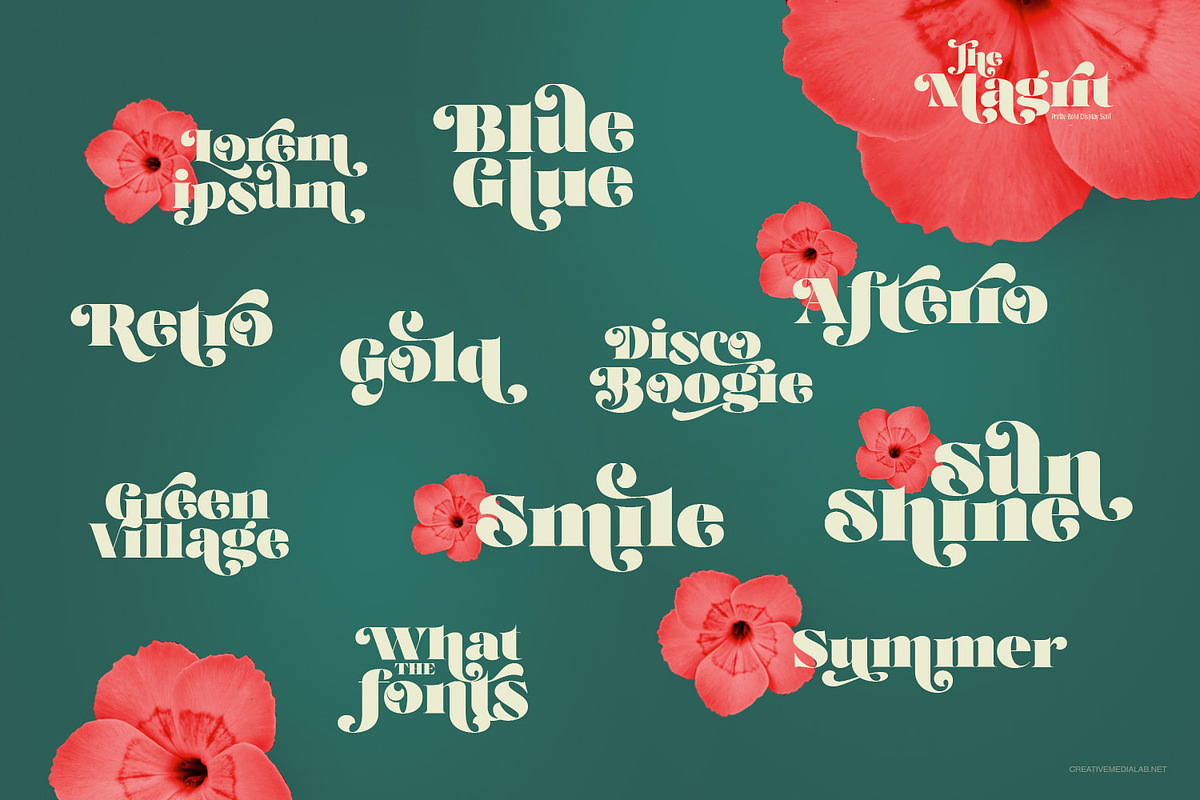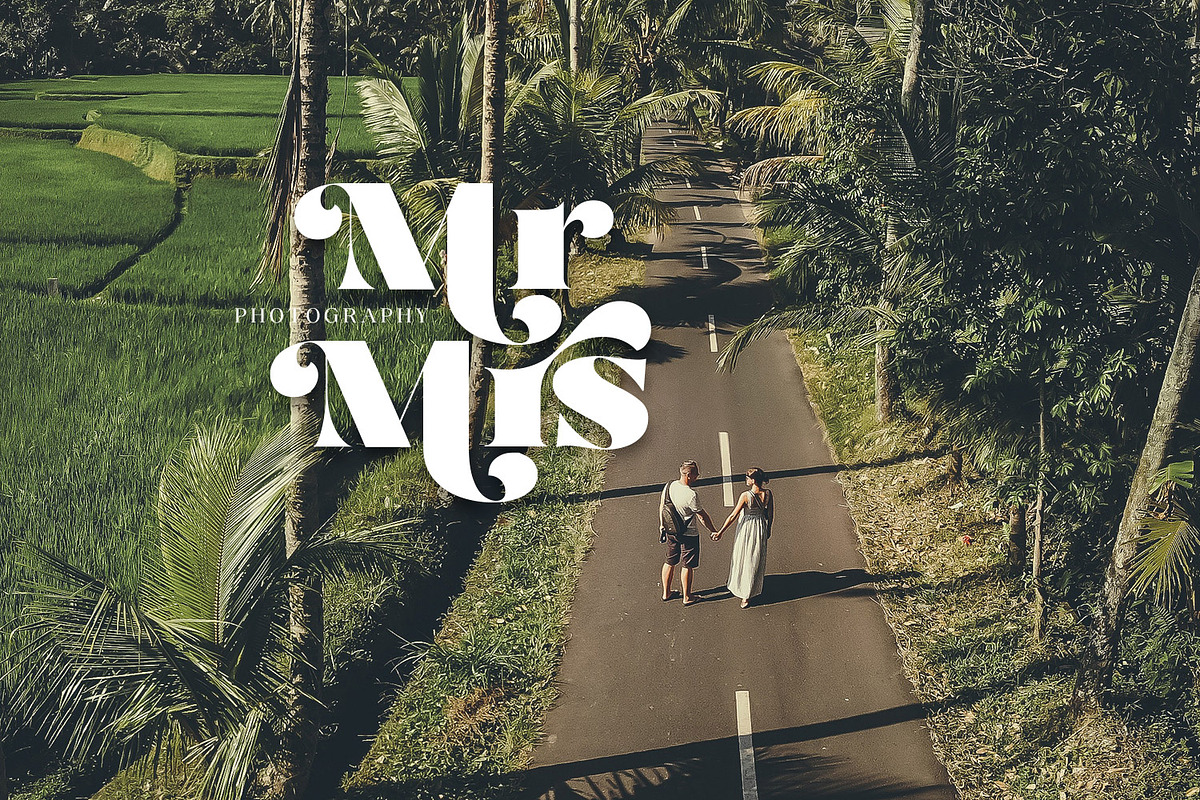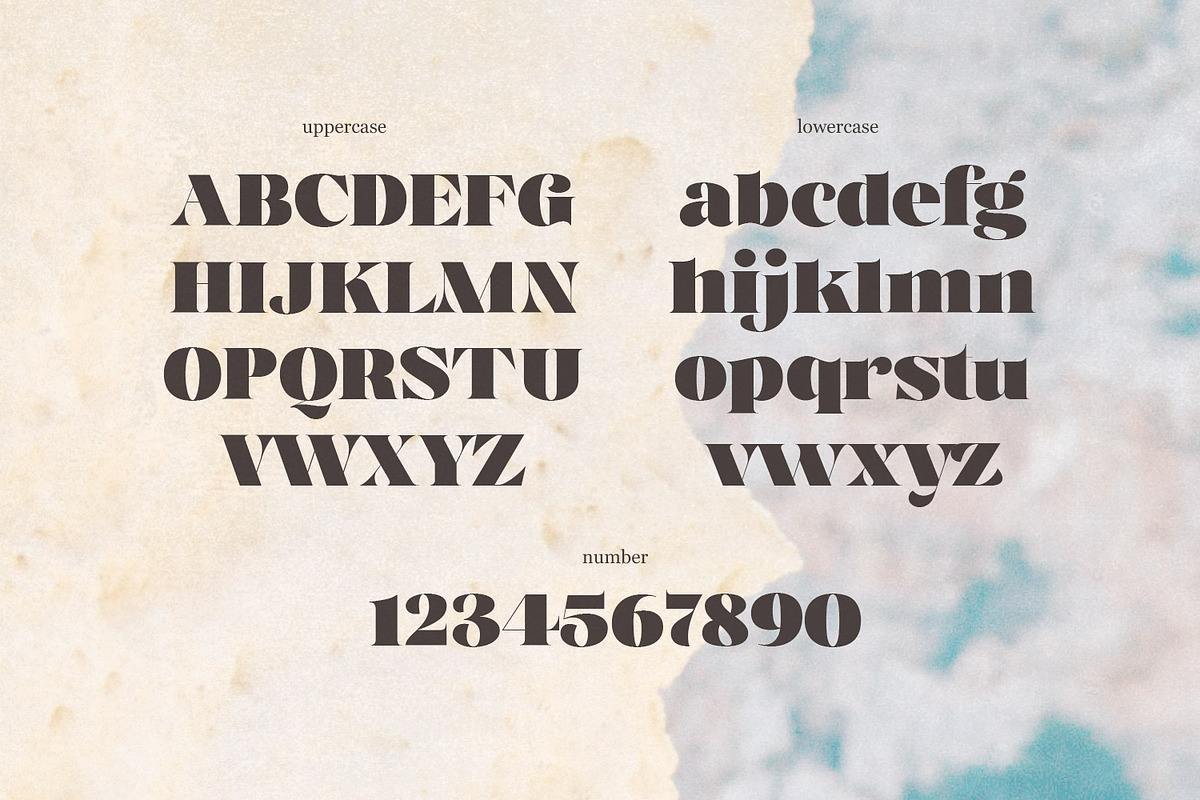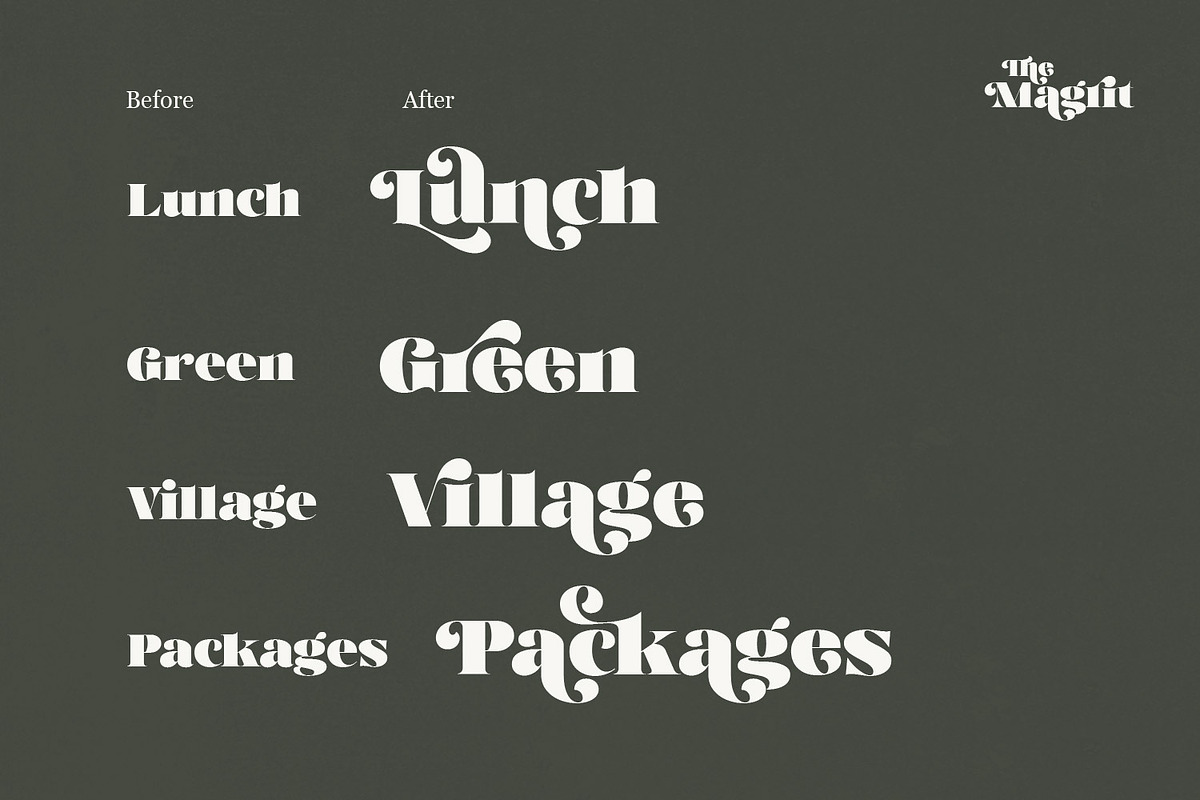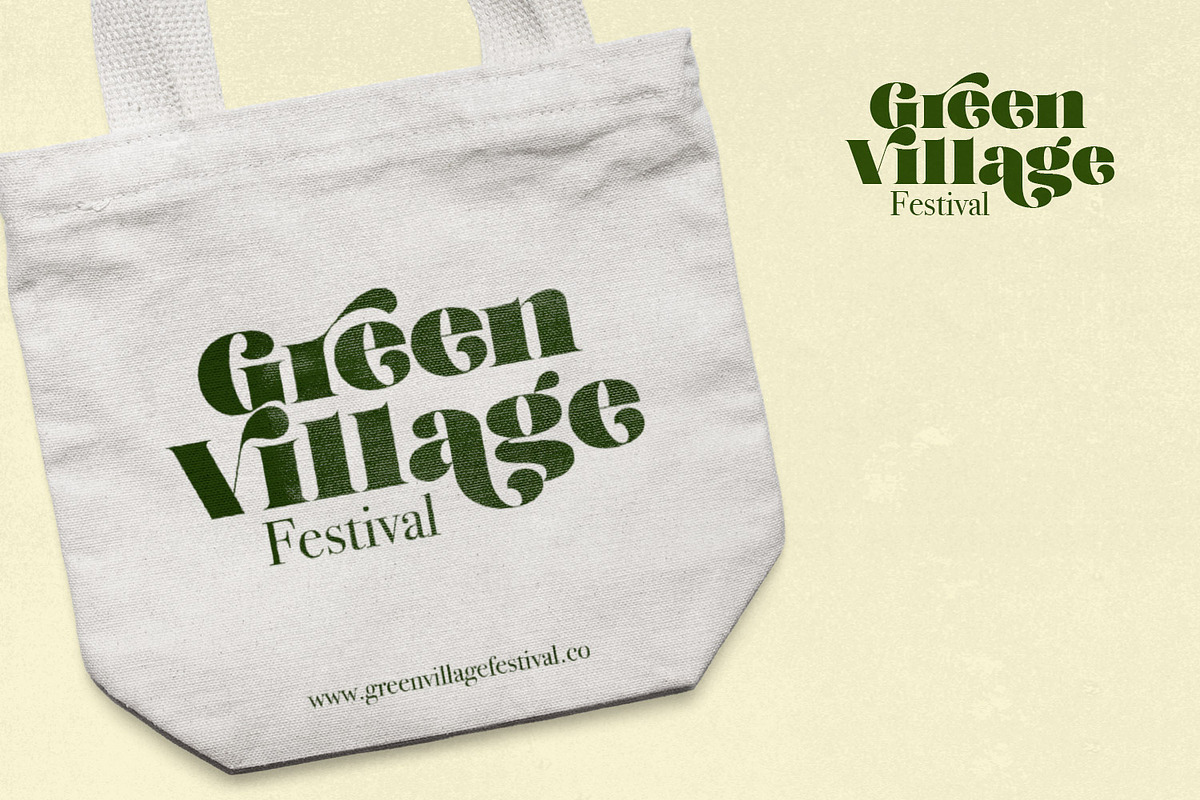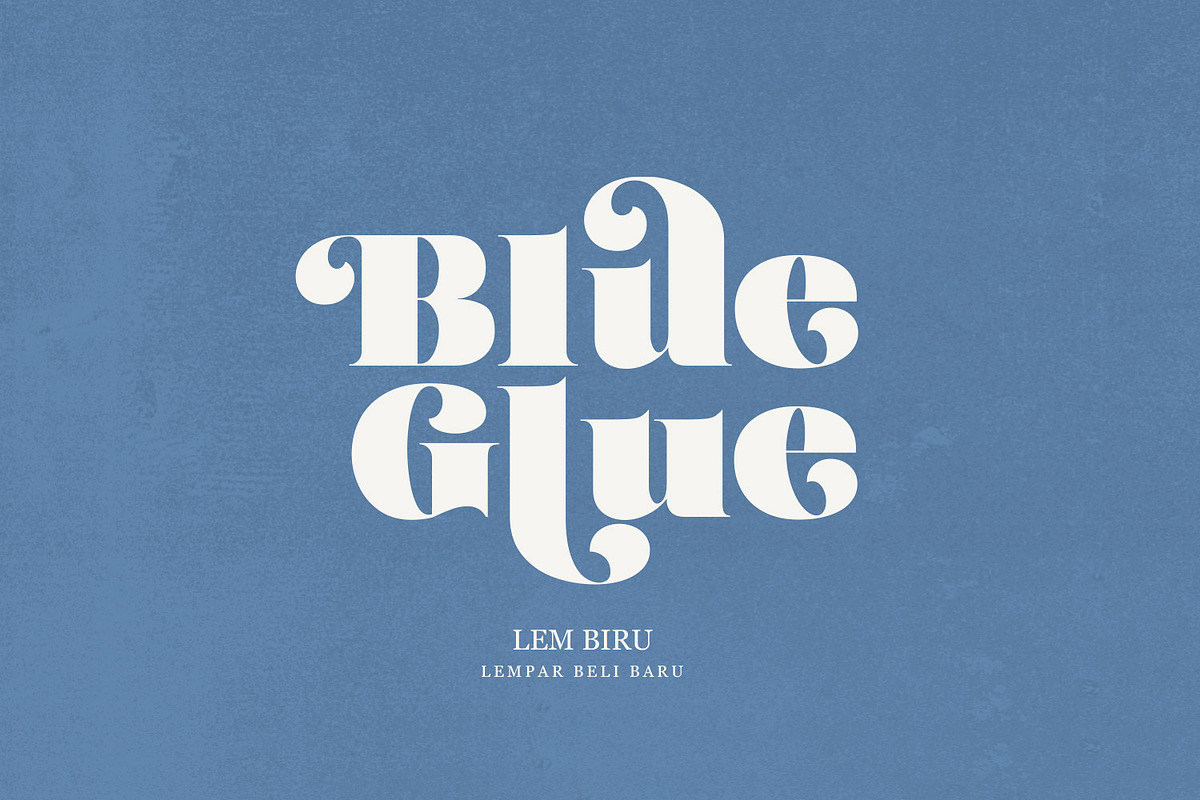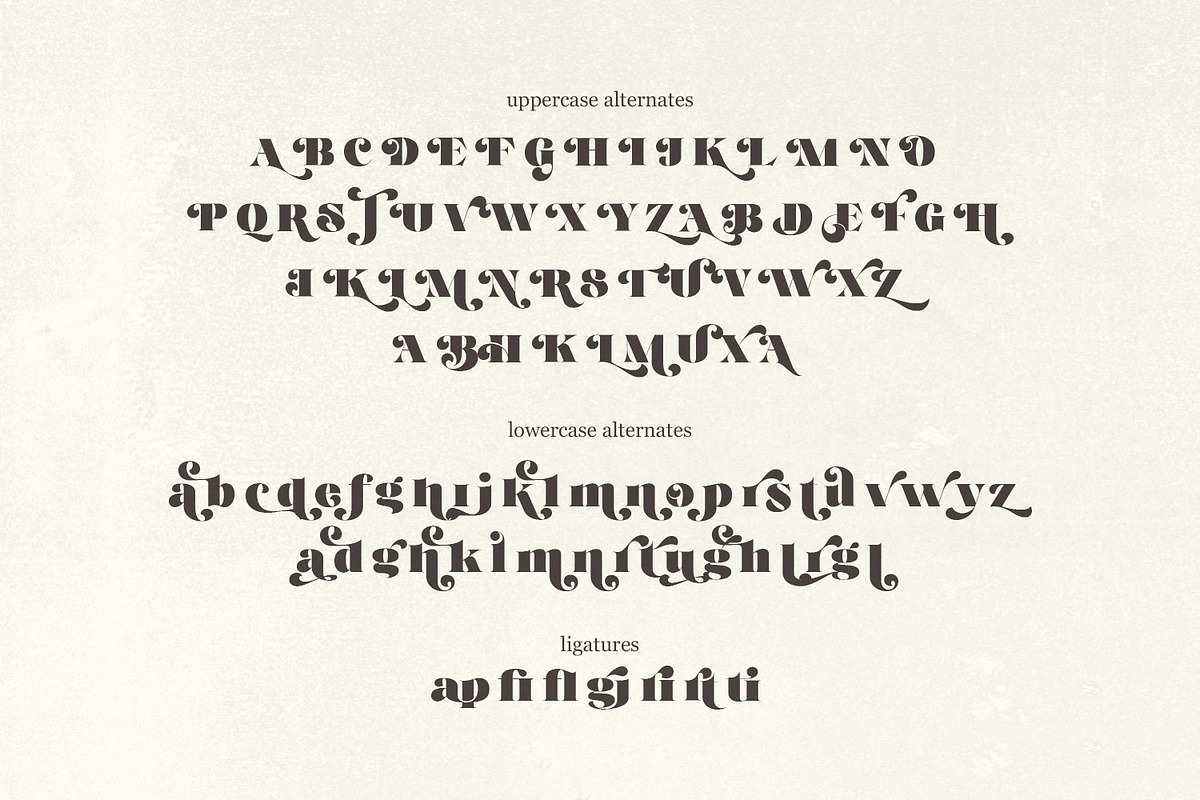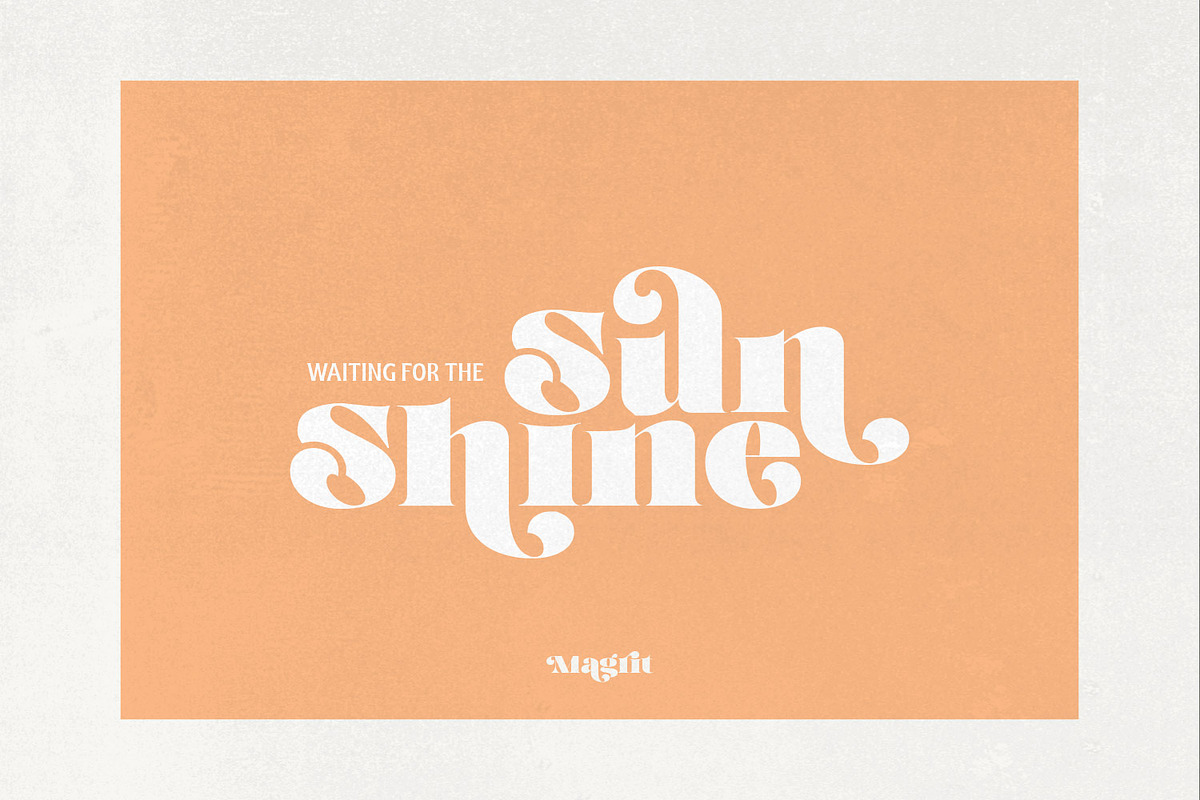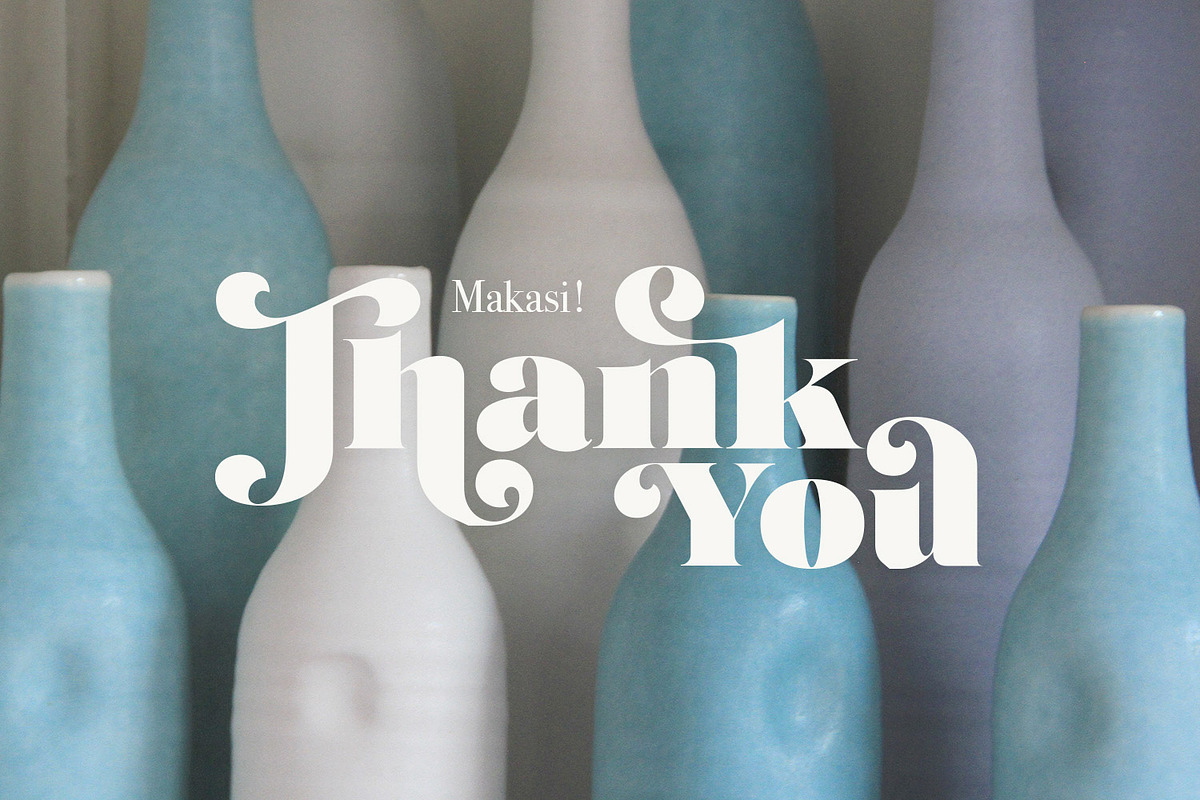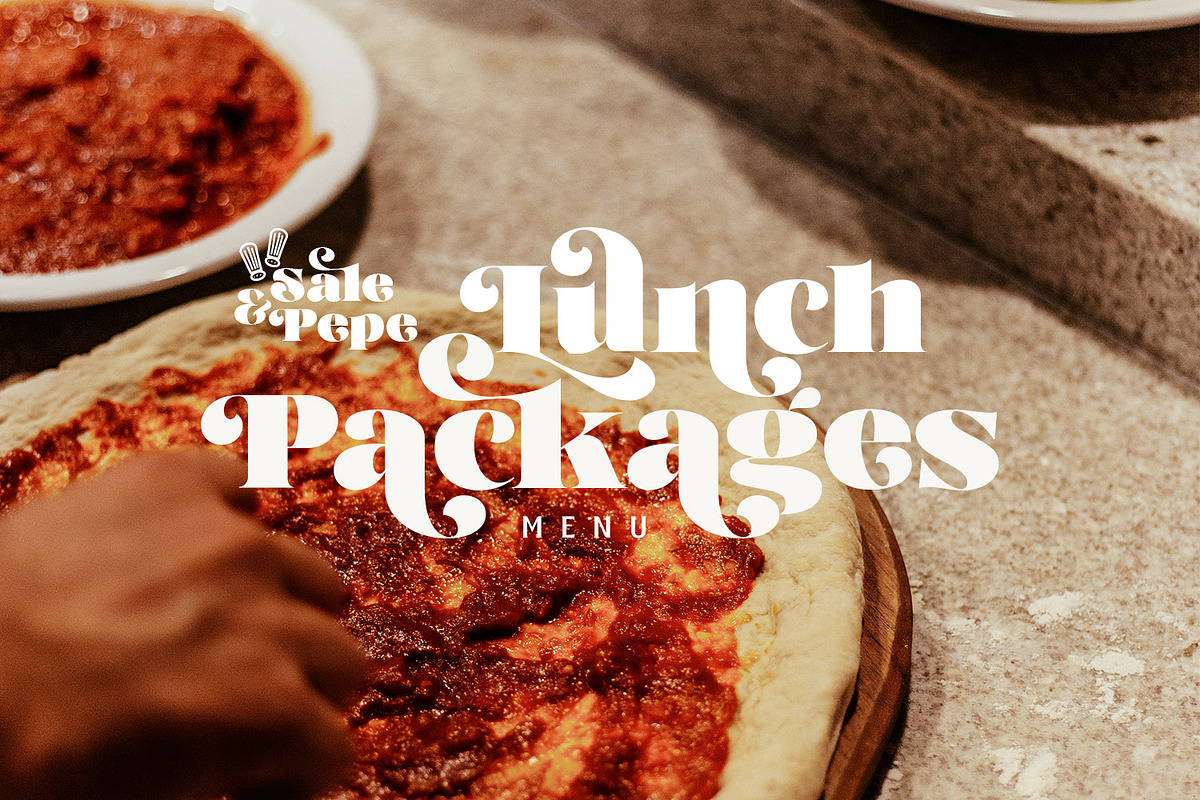
Magrit - Vintage Retro display Serif
Magrit is a vintage and retro bold serif display font, It has many alternates character with nice curve that you can arrange to create a nice logo lettering, or use it as a display face on a poster and add a few alterations to it to make a beautiful eye catching words.
Magrit font is best for branding, logo lettering, headlines, product packaging, tshirt design, wedding theme, poster, book cover, wedding invitation, Christmas and many more